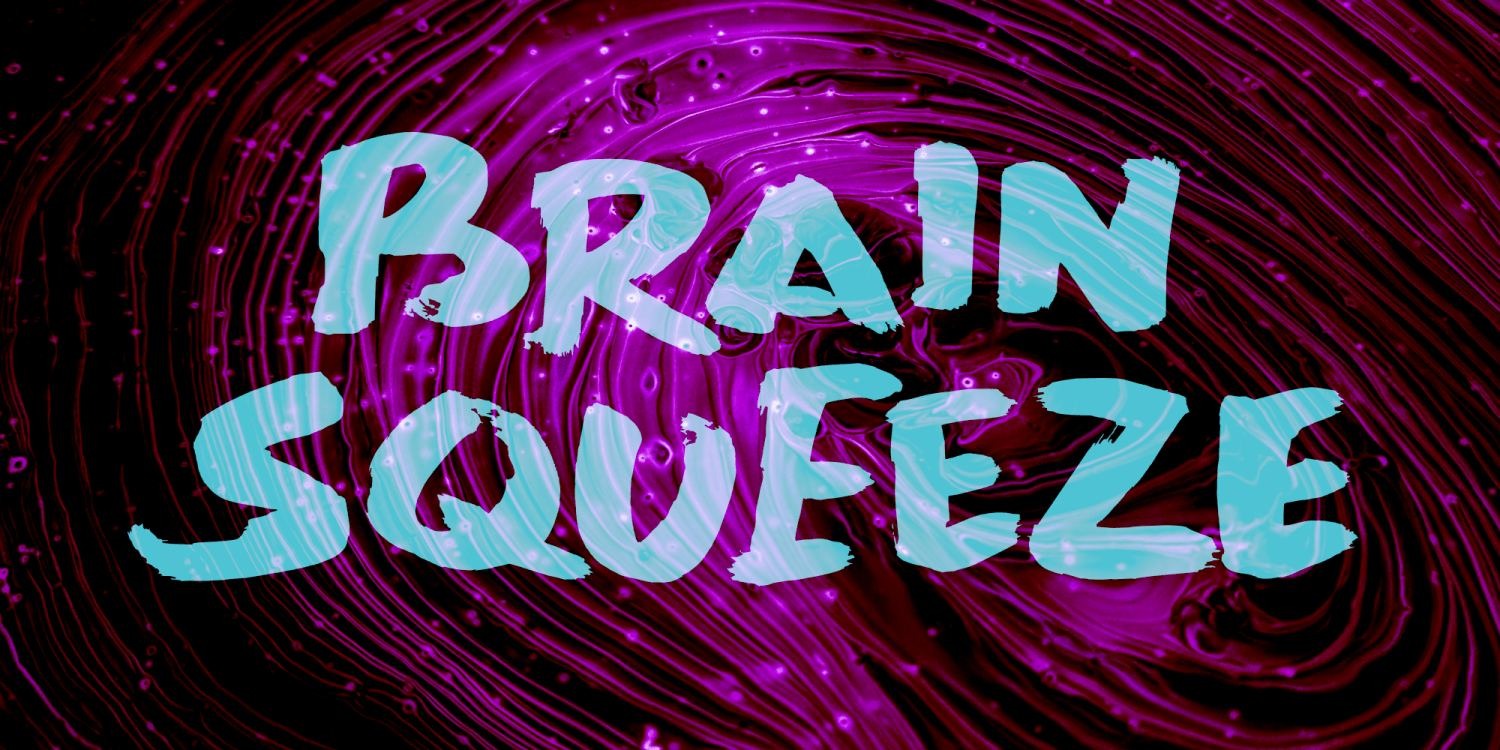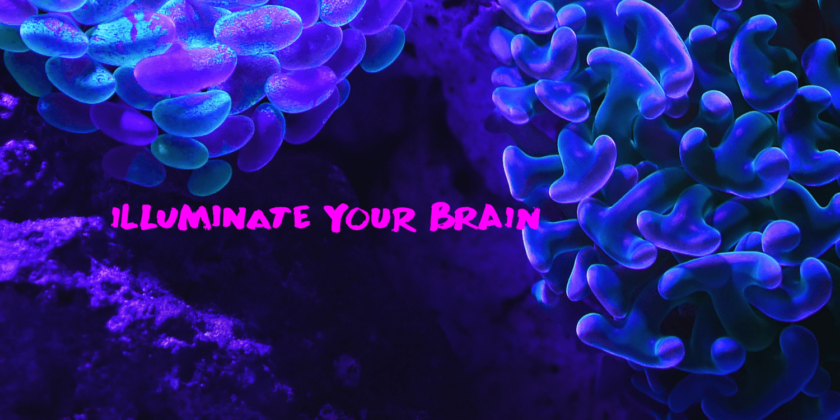
About Brain Squeeze
Brain Squeeze is a nice, fat, messy brush font. I made it with one of my late father in law\’s prized Chinese brushes and my Chinese ink. If you look through my library, you will notice that I make a lot of fonts using these tools! Brain Squeeze will…